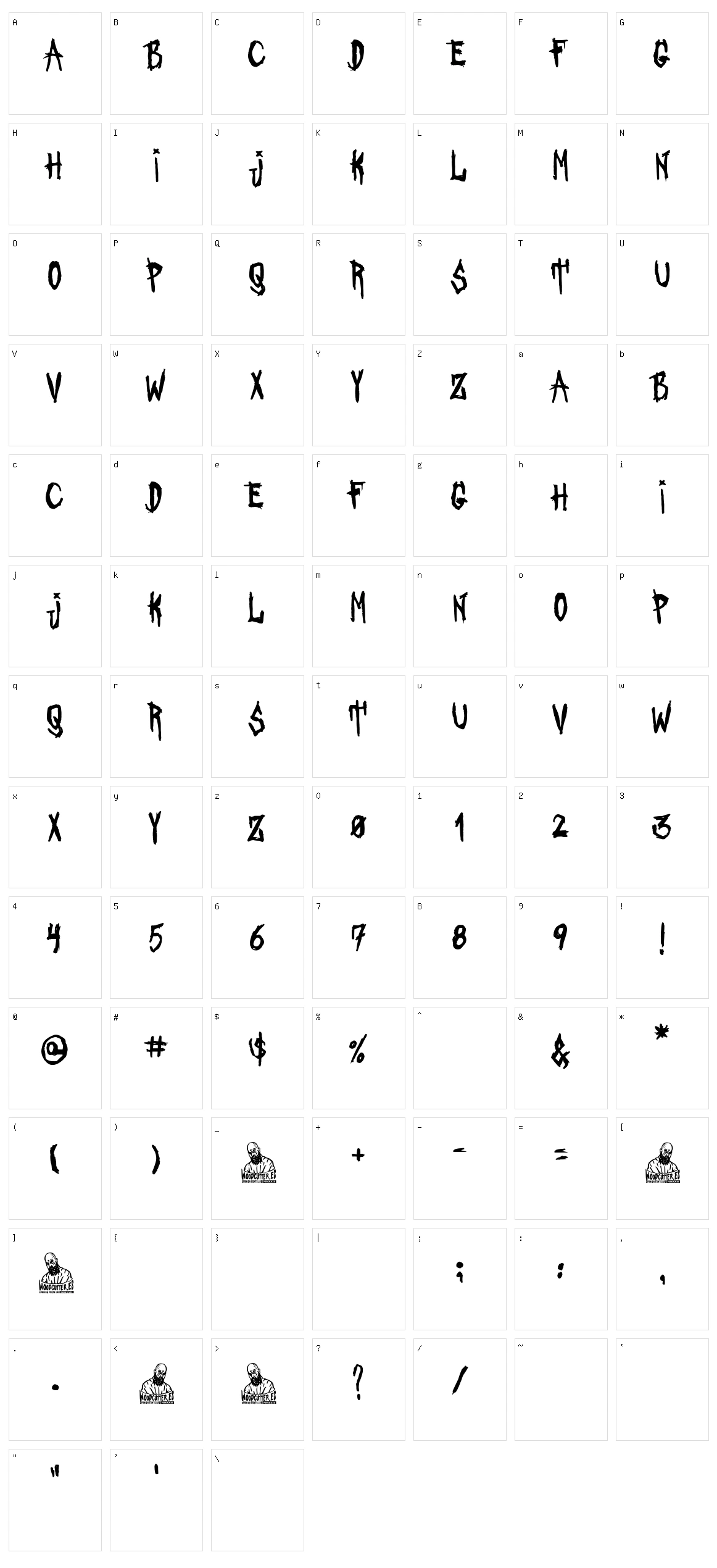
The free font Asesinato Matutino is carefully designed by Woodcutter, showcasing a thoughtful balance of creativity and usability and falls under the Horror font style. When you download the ZIP file, it contains only 70.41 KB of font files, making it lightweight and quick to download. Please review the license details below to understand permitted usage and distribution rights. If license information is not available, we recommend using this font for personal projects only or contacting the author directly for commercial usage permissions.